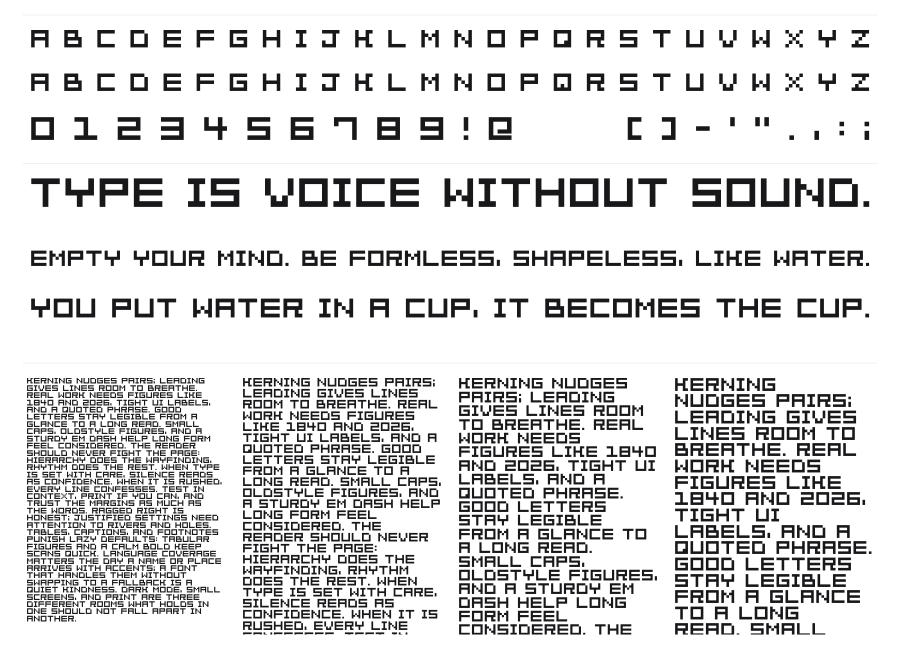
Pixelation
by Digital Flame Studios
Pixelation is a bold, blocky bitmap font from Digital Flame Studios with chunky uppercase letterforms built on a rigid pixel grid. It leans into that classic 8-bit digital aesthetic, all hard edges and no anti-aliasing, reading like text ripped from an early home computer screen. Best kept to headlines, game interfaces, and retro-themed projects where the lo-fi look is the whole point.